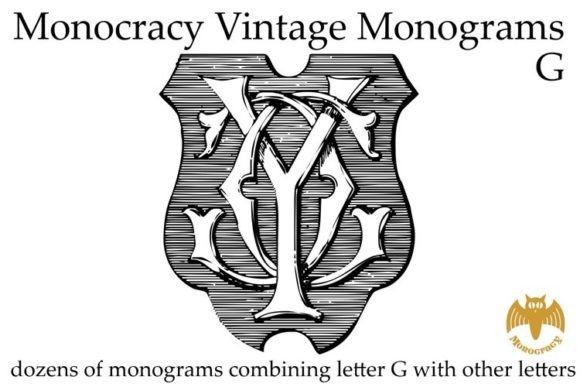
Step into a world of timeless elegance with Vintage Monograms G, the decorative font family that oozes sophistication and charm. Its intricate monograms, reminiscent of bygone eras, lend an air of exclusivity to any project, whether it's branding, personalization, or creating stunning designs.
Unleash your creativity and let Vintage Monograms G transform your invitations and stationery into exquisite works of art. Its ornate swirls and flourishes add a touch of timeless elegance, making every piece a cherished keepsake. Elevate your packaging designs with a touch of vintage charm, turning ordinary products into extraordinary gifts.
With Vintage Monograms G, you'll unlock a font that speaks volumes about your brand's personality. Its intricate details add a layer of depth and dimension, capturing the essence of your unique style. Create logos that stand out, resonate with customers, and leave a lasting impression.
Bring a touch of nostalgia and timeless beauty to your digital designs with Vintage Monograms G. Its small display-optimized size makes it perfect for social media graphics, website headers, and eye-catching call-to-actions.